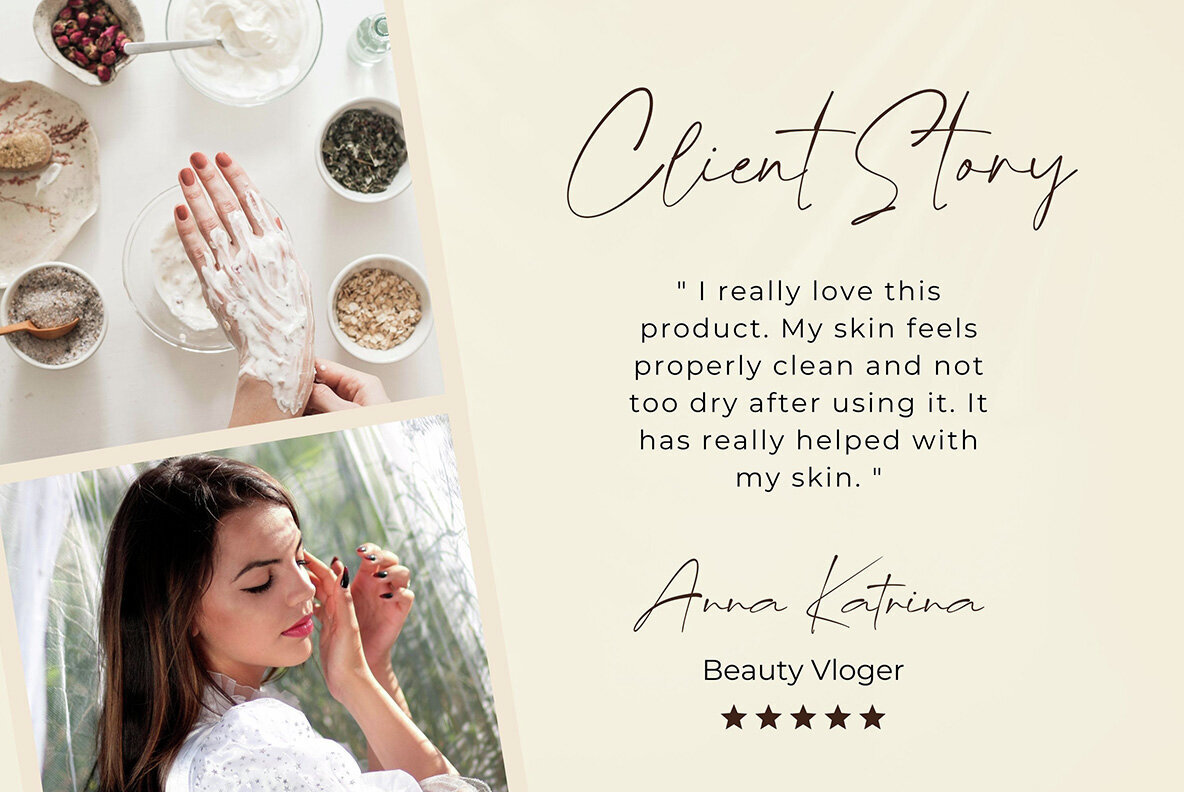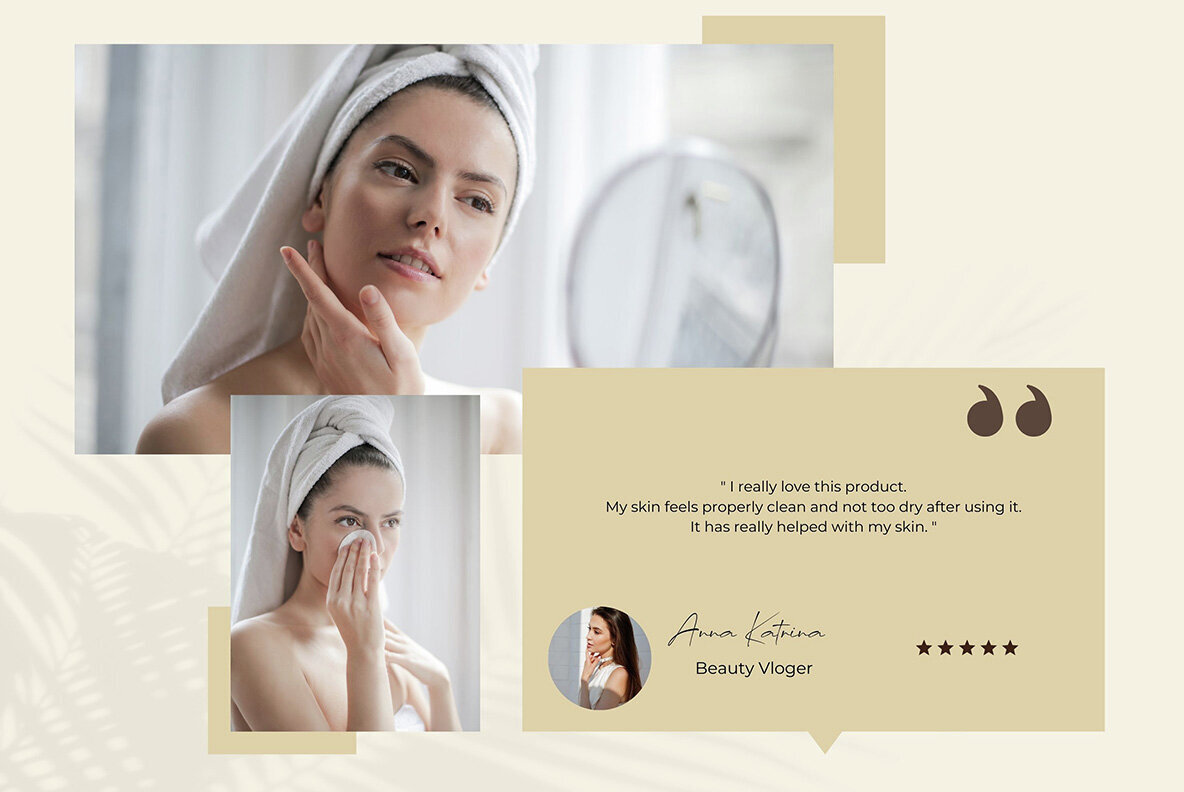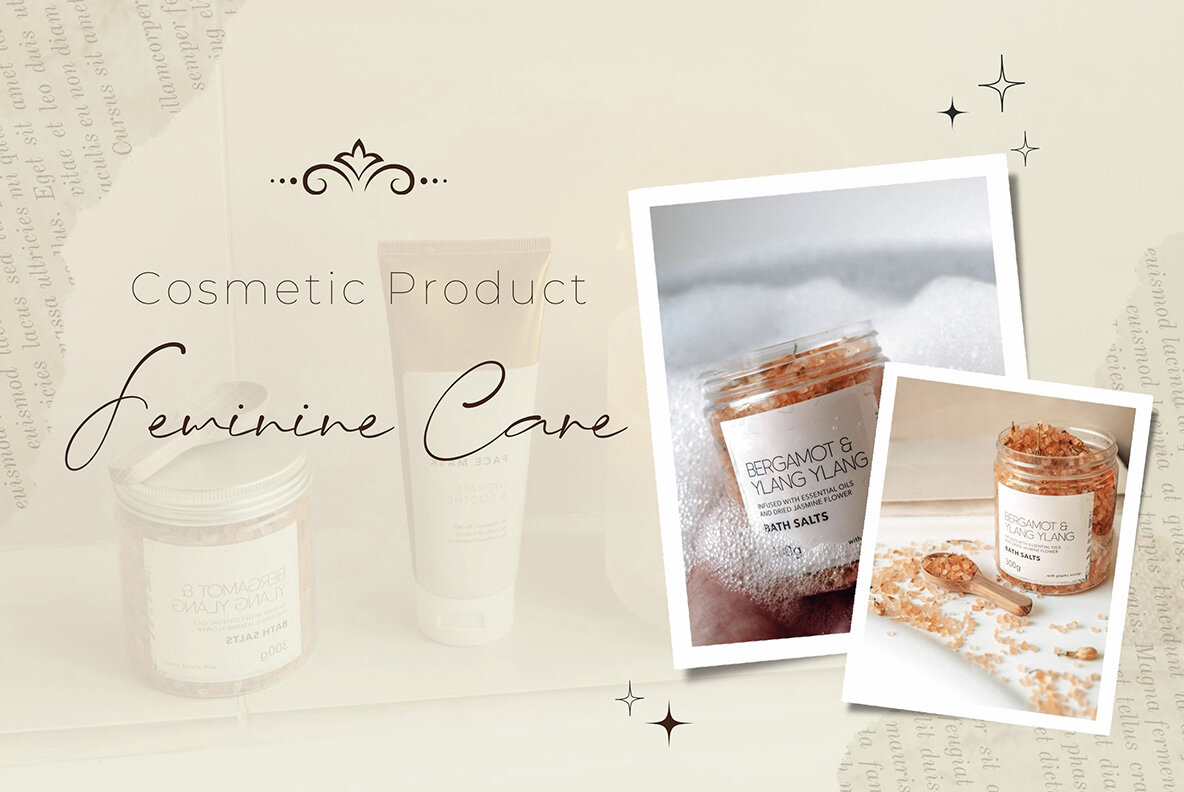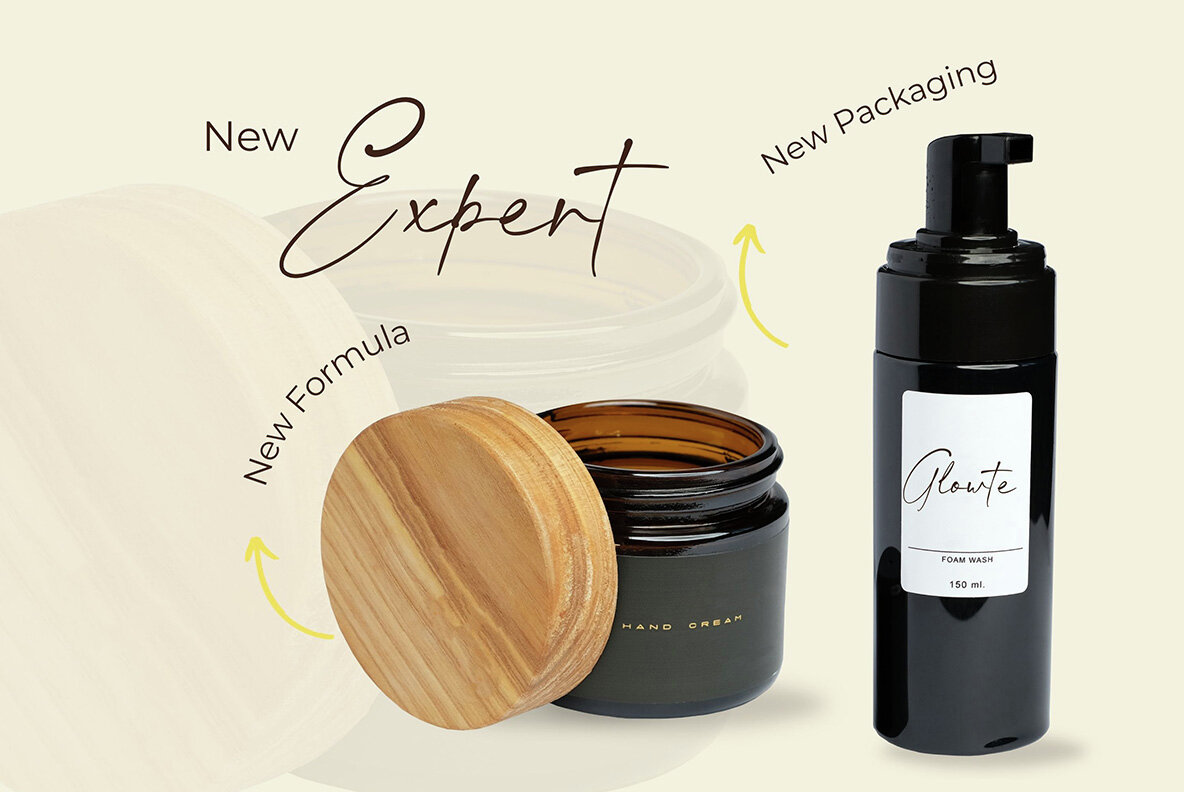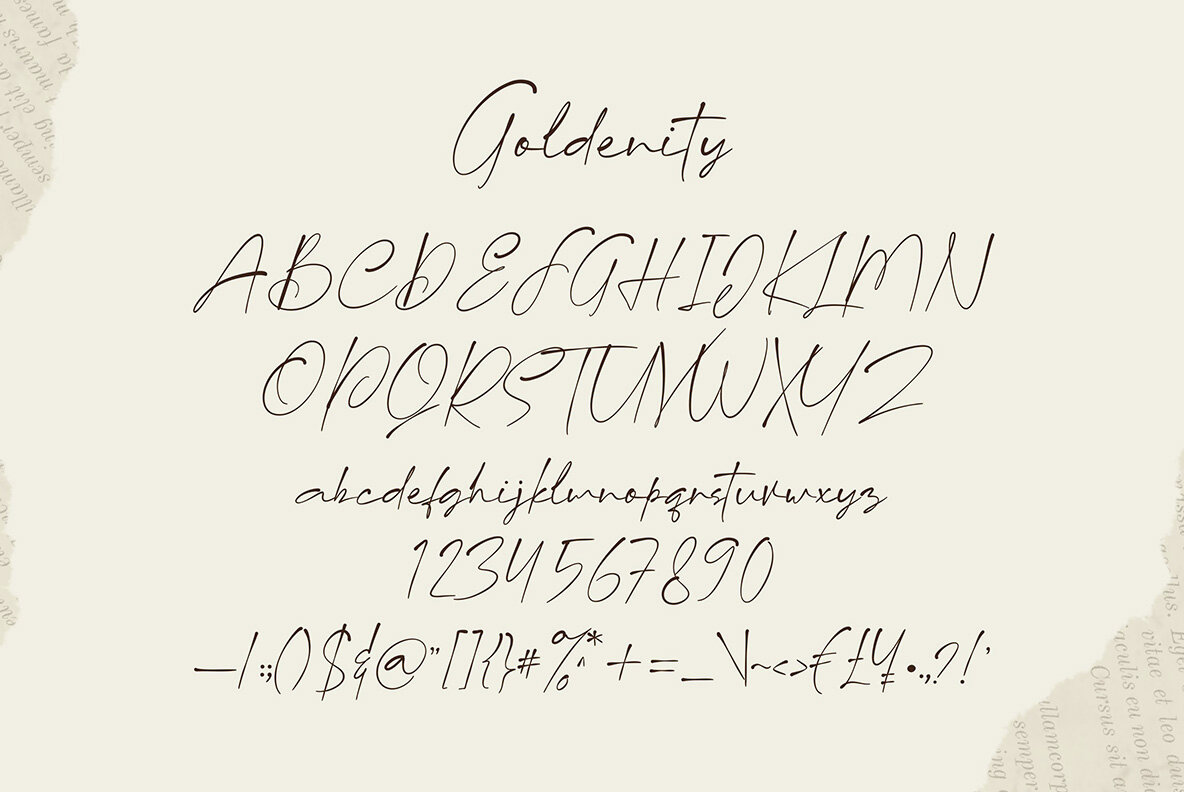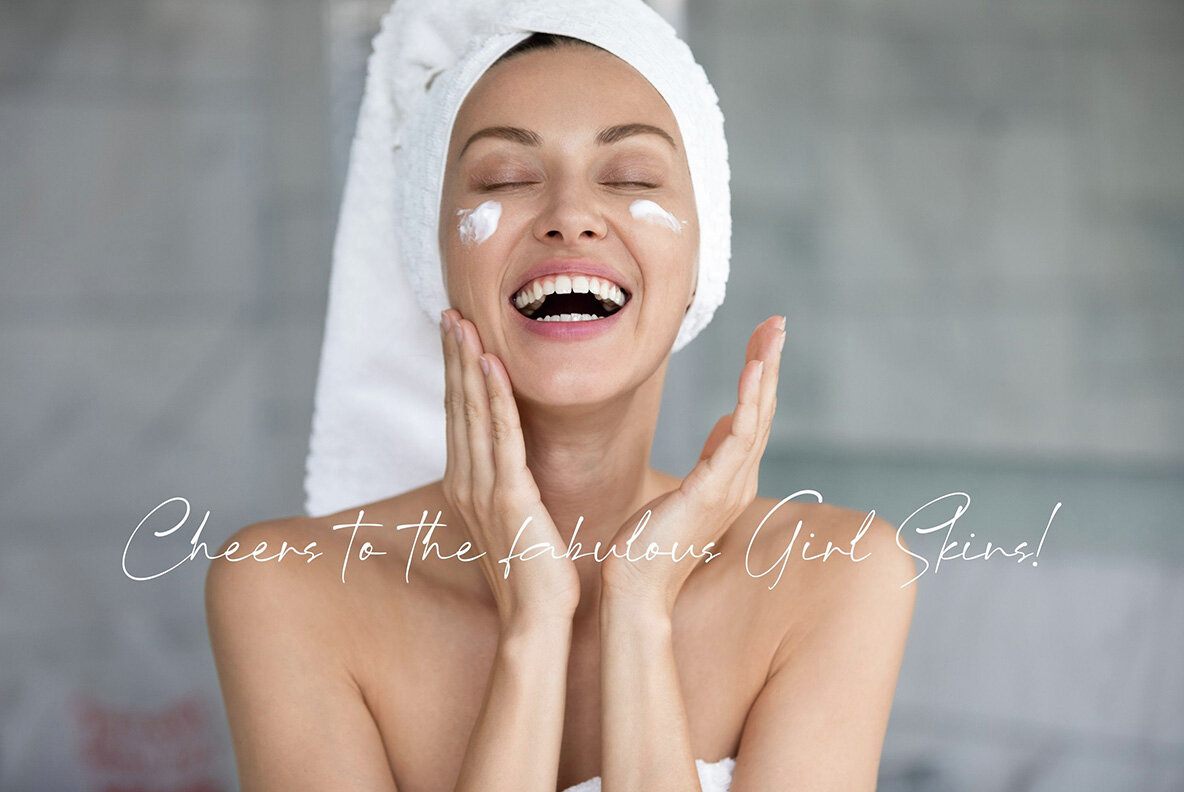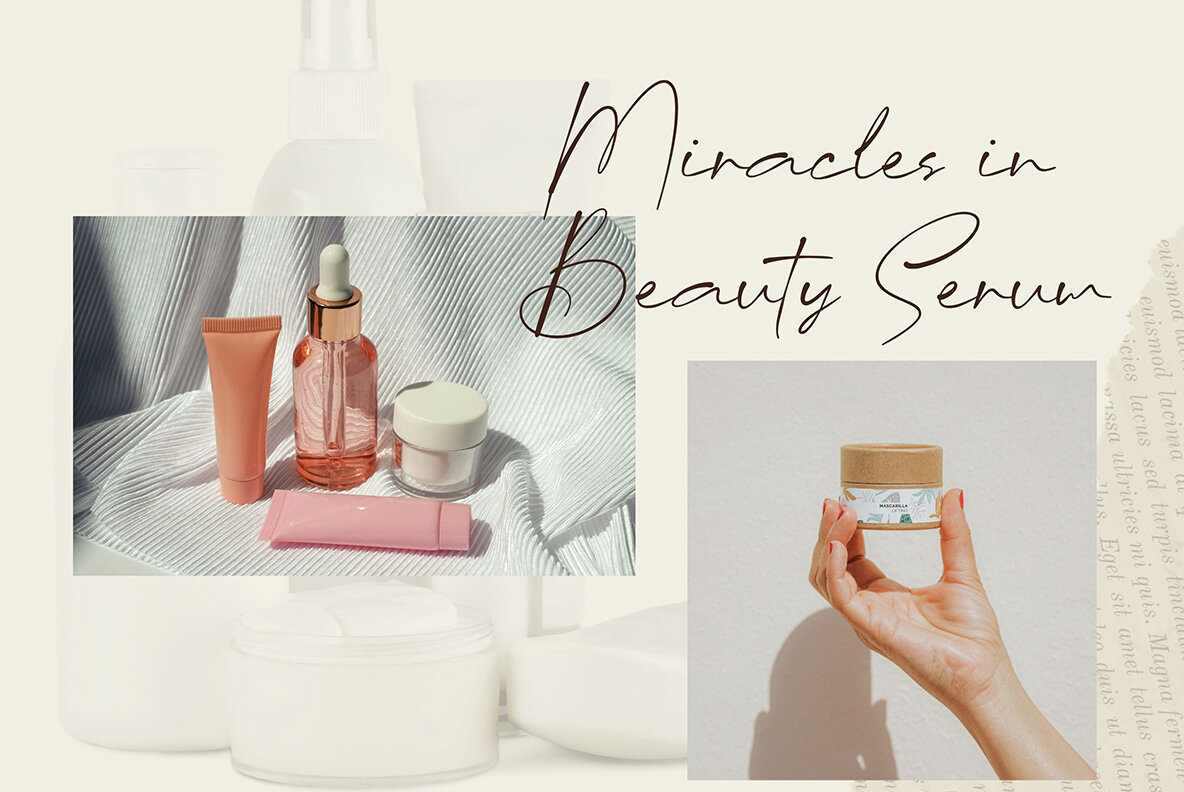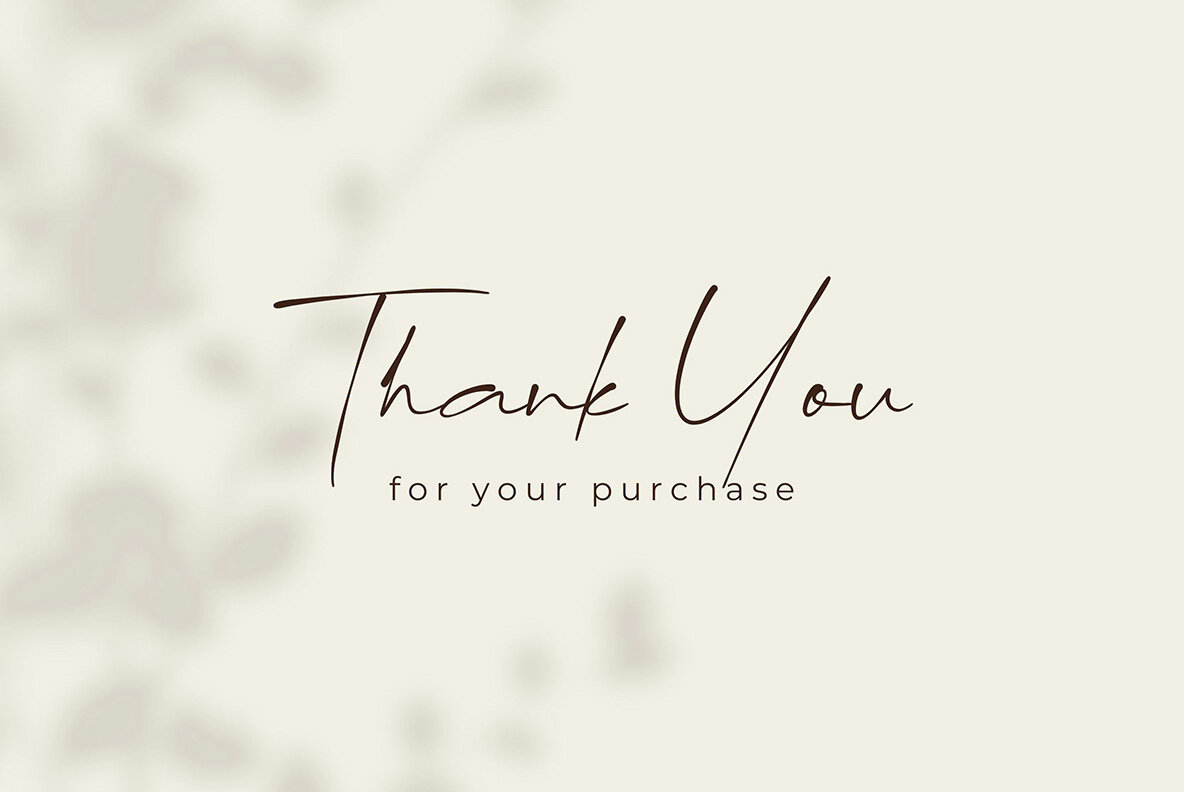
Goldenity Font
Goldenity Regular
Goldenity Font offers a modern handwritten style with the natural look of ligatures. This font is ideal for wedding invitations, feminine or organic logos, and small business branding. Perfectly suited for various projects, it brings a personal touch to wedding calligraphy and packaging design.Goldenity: A Modern Handwritten Font with Ligatures